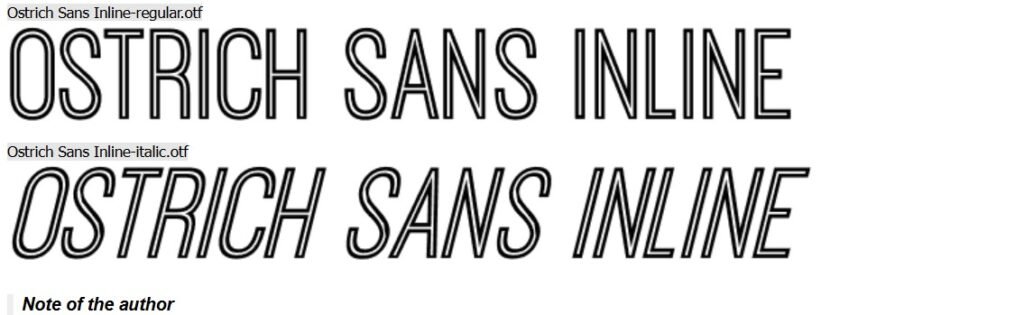
Ostrich Sans Inline font makes sure that your logos, branding visuals, and headlines definitely get the attention they deserve. As with other fonts of the Ostrich Sans family, this specific font has a stylish modern appeal, and adds sophistication to bold digital designs without compromising on readability.
Like all other members of the Ostrich Sans family, this font is all-caps but with an added sleek, stylish twist – It has geometric shapes combined with contemporary precision. This unique all-caps tram depicting modern geometry will undoubtedly give the visuals a wow-moment, yet remain simple. Designers, branding professionals, and typographers love using this font on their eye-catching projects that need a unique twist.
What is Ostrich Sans Inline Font?
The Ostrich Sans Inline regular font was designed by Tyler Finck and released by The League of Moveable Type, a collective known for their high-quality, open-source typefaces.
The Ostrich Sans Inline Regular font is designed by Tyler Finck and published by The League Of Moveable Type, a design collaborative with a reputation for exceptional quality open source typefaces.
This font is part of the Ostrich Sans font family, which includes several other fonts like:
- Ostrich Sans Rounded
- Ostrich Sans Dashed
- Ostrich Sans Bold
- Ostrich Sans Heavy
What makes Ostrich Sans Inline stand out among other fonts is an unusual feature that sets it apart—as an inline cut that penetrates each capital letter—bringing elegance and refinement to the font’s complete structure. Also, this typeface is well-known for branding, editorial web design, and minimalistic layouts because of its popularity and sharp geometric form.
Features of the Ostrich Sans Inline Typeface
Here’s why Ostrich Sans Inline stands out from the crowd:
- All-Caps Design: The font includes uppercase letters only—perfect for impactful headers and titles.
- Modern Aesthetic: Sharp, clean lines make it ideal for trendy, contemporary projects.
- Web-Friendly: Optimized for both screen and print, making it versatile for digital and offline use.
- Multiple Styles: Easily paired with other styles in the Ostrich Sans family for dynamic typography.
Applications of Ostrich Sans Inline Font
The Ostrich Sans Inline typeface is flexible and works beautifully across a variety of design projects:
- Headlines & Titles
Perfect for posters, flyers, banners, and editorial layouts that require high-impact typography. - Branding & Logos
Use it to create clean, professional logos or product labels that pop. - App Interfaces
A great choice for navigation labels or interface elements in sleek, minimalist apps. - Social Media Graphics
Eye-catching for quote cards, announcements, or promotional graphics. - Merch & Packaging
Works well on apparel, tech accessories, or packaging that targets modern, design-conscious audiences.
Conclusion:Ostrich Sans Inline Font
Ostrich Sans Inline stands out as a bold modern choice for any creative looking to enhance their design. It is a must-have for any designer due to its intricate detailing, geometry, and versatility.
This all-caps sans serif typeface is perfect for product logos, social media marketing, and app interfaces—whatever your design needs are, it provides a contemporary polish that makes style hard to miss.